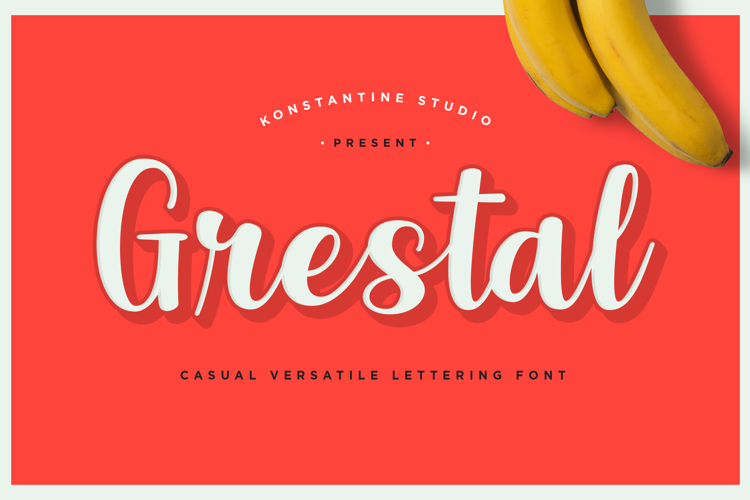
Grestal Script Font
Please welcome, Grestal. A modern casual calligraphic font with lettering feels. So chill and fun to play with. Perfectly fit for any casual branding, food and beverages packaging, social media branding, logo, a vintage and retro things are an absolute yes too for this font. Send the messages with your design in a fun way with it. Double the happiness!
the most important in calligraphy is CAPITAL LETTERS and there is no such thing as bad
its a pretty font tbh but the fact I can't type in capitals is kinda annoying
please make capitals and numberssss